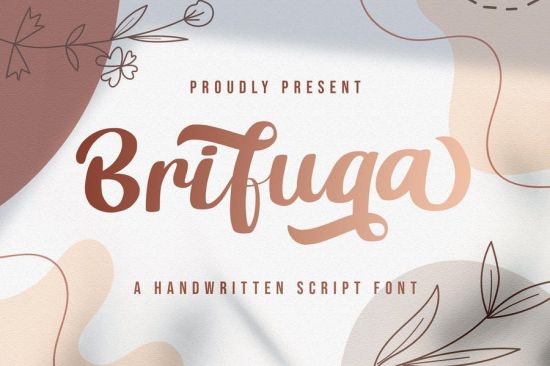
Introducing Brifuqa - Handwritten Script Font
Brifuqa is a flowing handwritten font, described by an elegant touch, perfect for your favorite projects. Fall in love with its incredibly distinct and timeless style and use it to create spectacular designs!